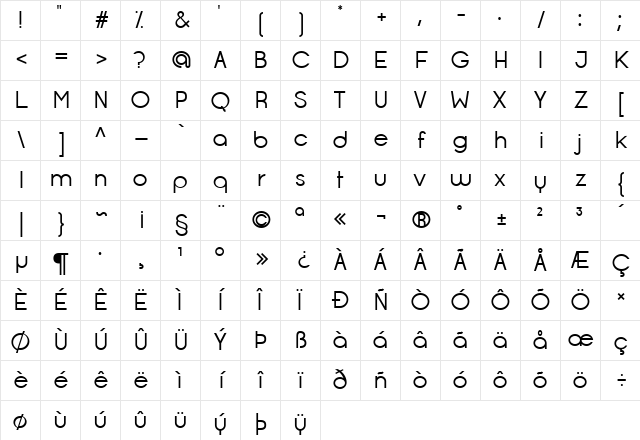
Opificio Regular
Foundry: Monocromo s.n.c.
Designer: Andrea Cerboneschi for Monocromo
Design Context for Opificio
Opificio is a composed and adaptable typeface that performs quietly and consistently across a wide range of design contexts.
Pro Tip: Use Opificio in both headline and body roles to test its range before committing to a single application.